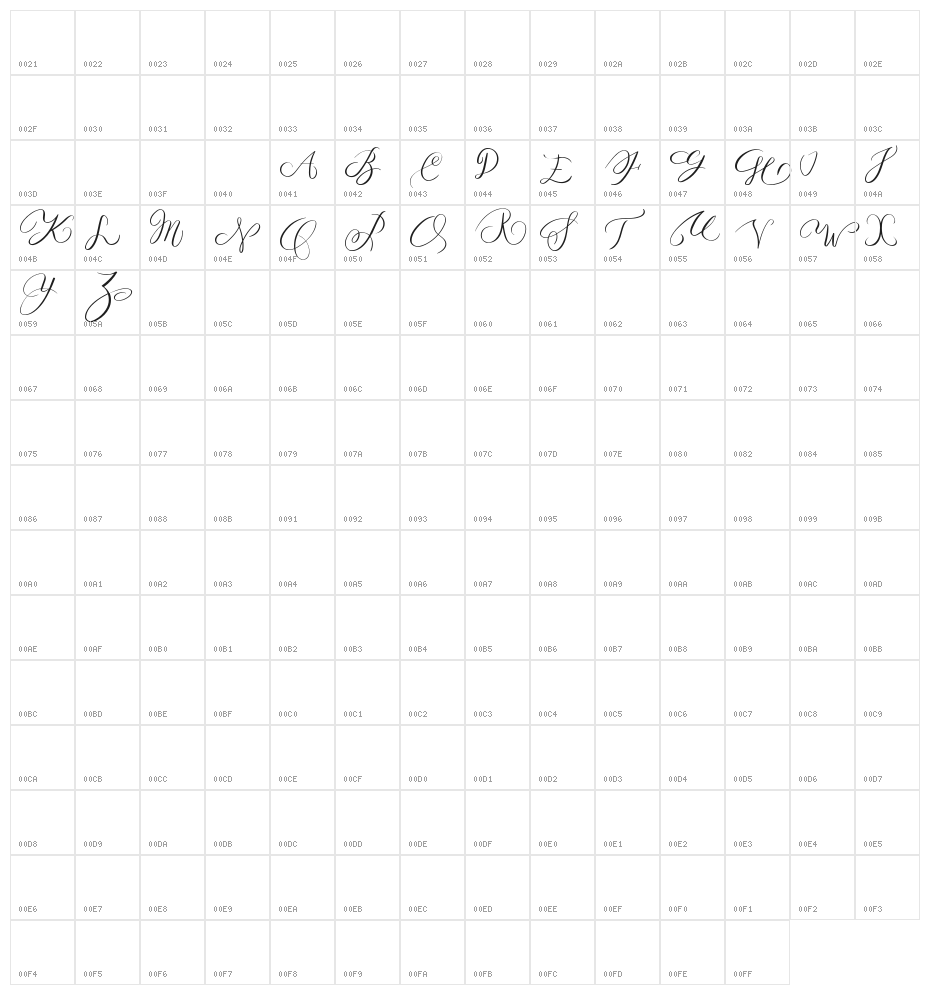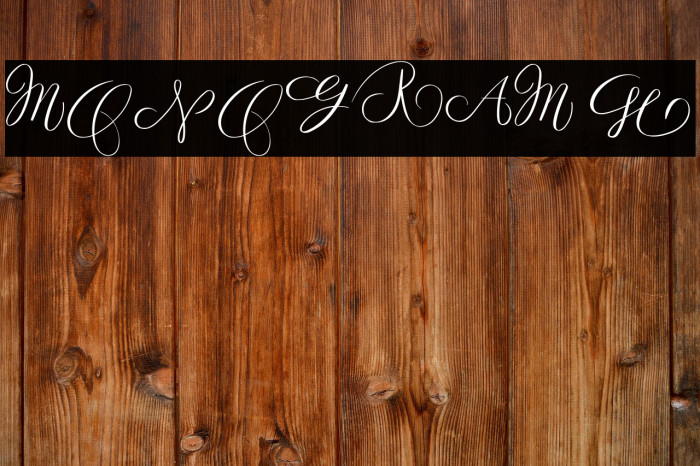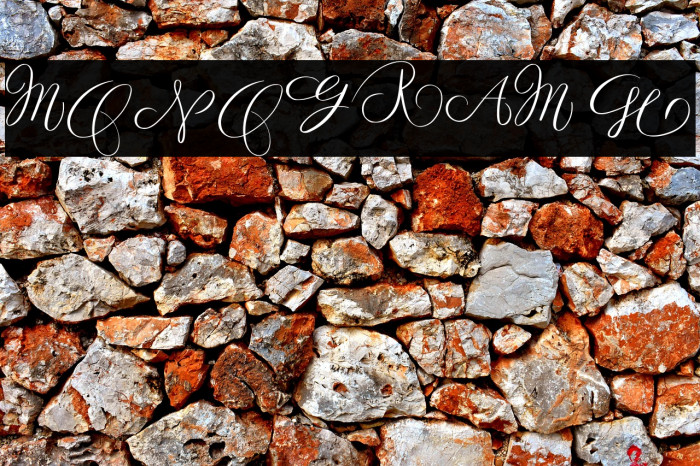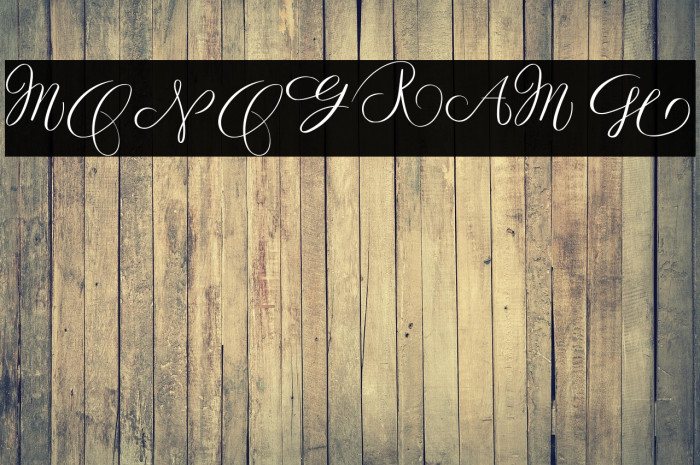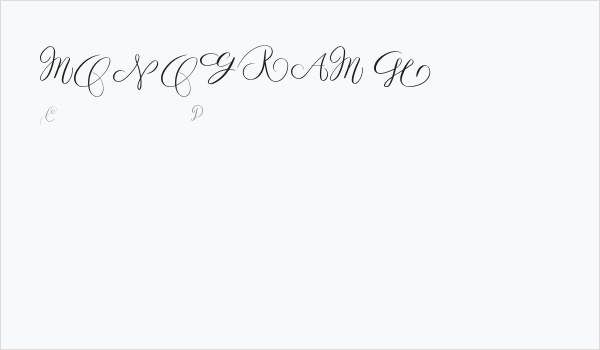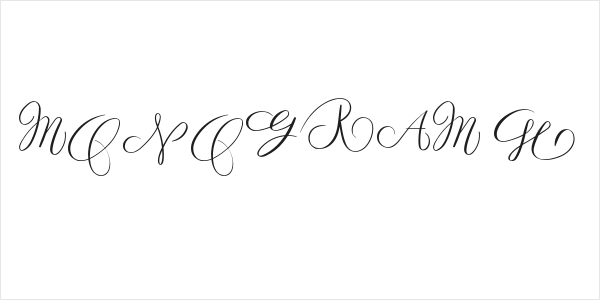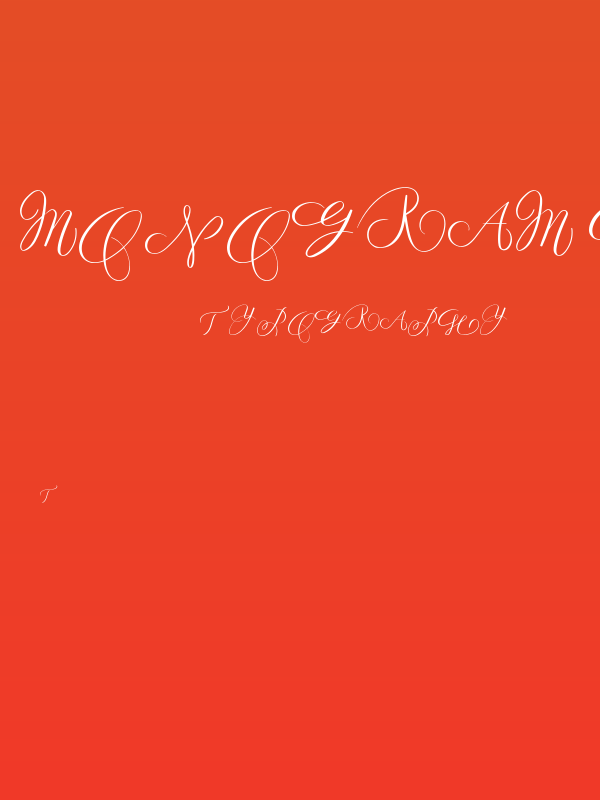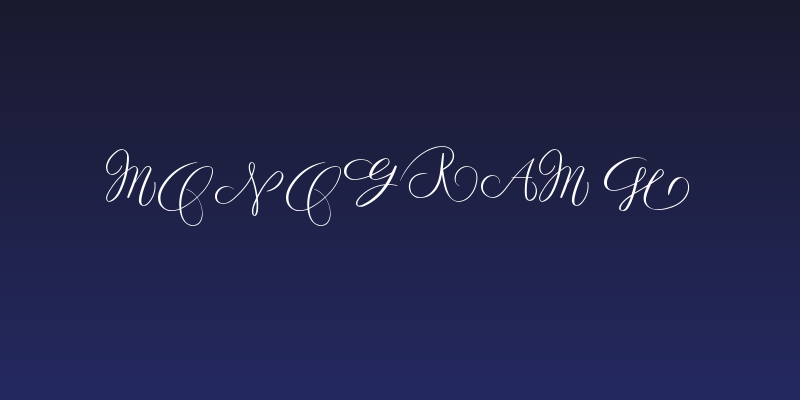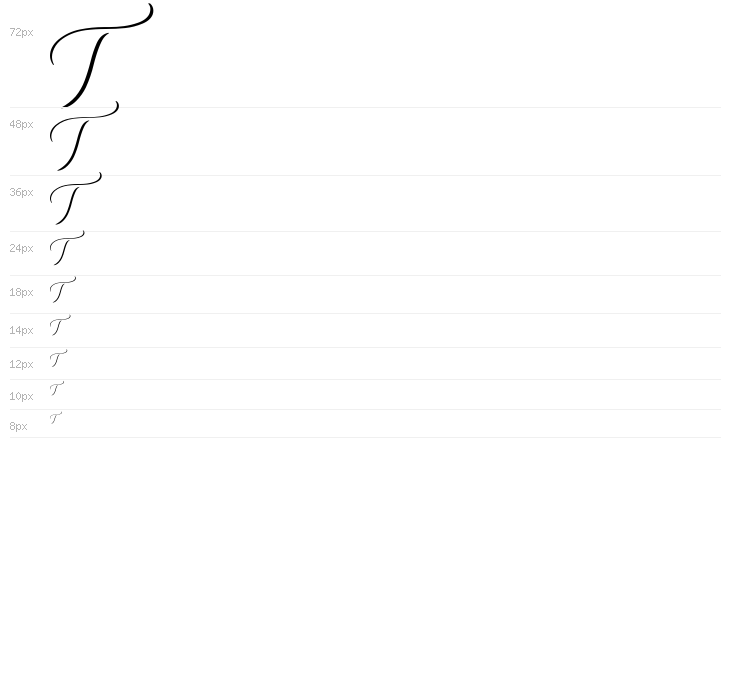
MONOGRAM H Font
MONOGRAM H Description
This elegant script font features a sophisticated and flowing design, characterized by its intricate loops and swirls. Each letter is crafted with a sense of fluidity and grace, making it ideal for formal and decorative applications. The uppercase letters are particularly ornate, with elaborate flourishes that add a touch of luxury and refinement. The font maintains a consistent stroke width, providing a harmonious and balanced appearance. Its classic style evokes a sense of timeless elegance, suitable for high-end branding, wedding invitations, and other upscale design projects.
| Overall Style | Classic |
| Use Case | Logos, Invitations, Decorative Text |
| Proposed Projects | Ideal for wedding invitations, luxury branding, formal event programs, and decorative monograms. |